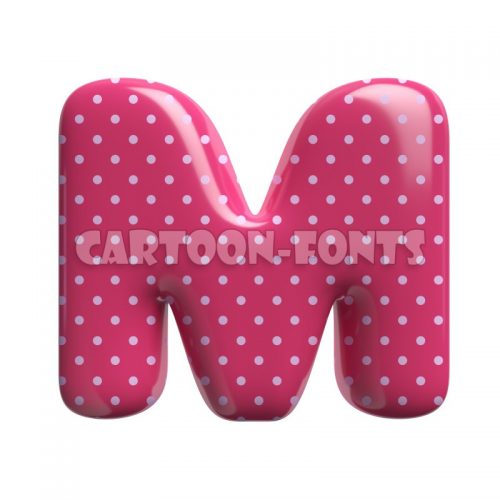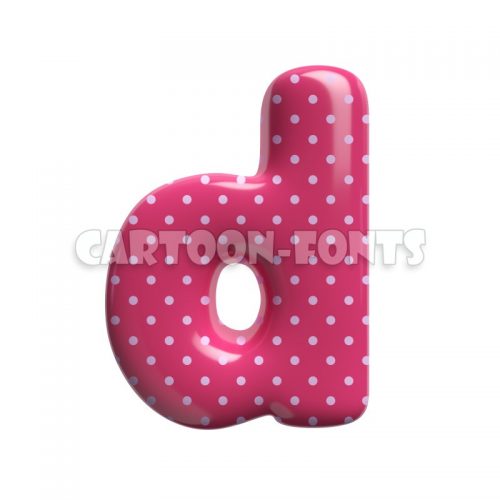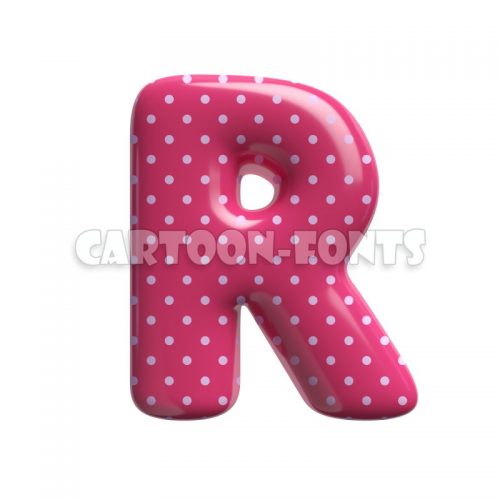
Pink dotted font B - lowercase 3d character
Pink dotted font B
Pink dotted font B illustration against a white background.
This is the perfect image for creative projects linked to Fashion, retro design or decoration thematics.